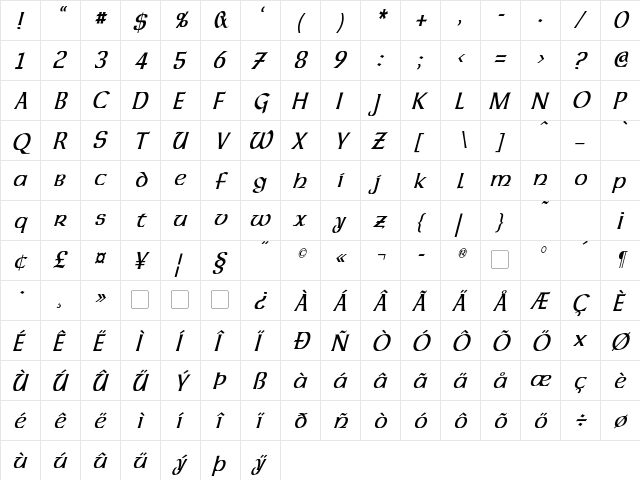
Dalelands Uncial Condensed Italic
Foundry Neale Davidson
FoundryNeale Davidson
DesignerNeale Davidson
Design Context for Dalelands Uncial Condensed Typeface
Dalelands Uncial Condensed takes a measured approach to typography — its balanced proportions and neutral character make it a reliable workhorse for both digital and print work. The dynamic lean of this cut emphasises speed and emphasis in any layout. The condensed width makes it efficient for tight spaces without sacrificing legibility.
Pro Tip: Use Dalelands Uncial Condensed for emphasis, pull quotes, and subheadings where its slanted energy can add rhythm to the layout.